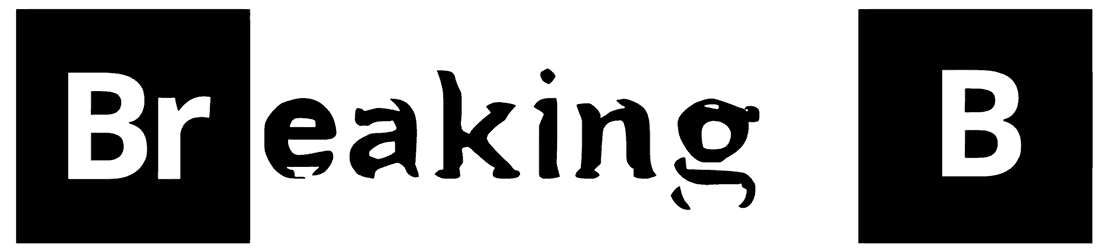
Breaking B Font
Bring the intensity of a TV icon to your designs with the Breaking B font, inspired by the gripping visuals of the hit series Breaking Bad. This bold, science-lab-styled typeface channels the suspense, drama, and unforge…
Bring the intensity of a TV icon to your designs with the Breaking B font, inspired by the gripping visuals of the hit series Breaking Bad. This bold, science-lab-styled typeface channels the suspense, drama, and unforgettable chemistry of the show. Perfect for posters, fan projects, YouTube thumbnails, or any design needing a dark, edgy vibe. Let your creativity cook with this standout movie font and give your work that unmistakable Breaking Bad flair. Say your name — in style!